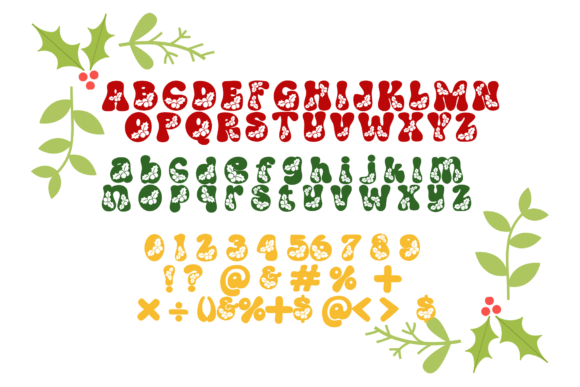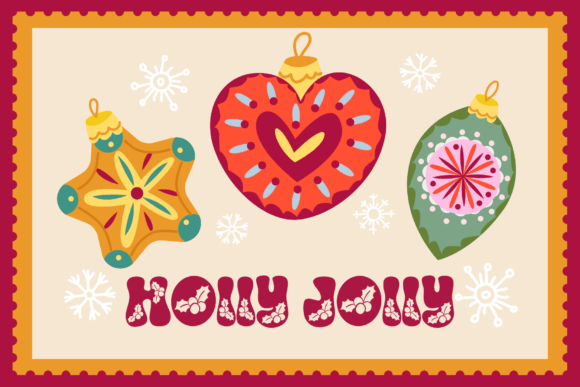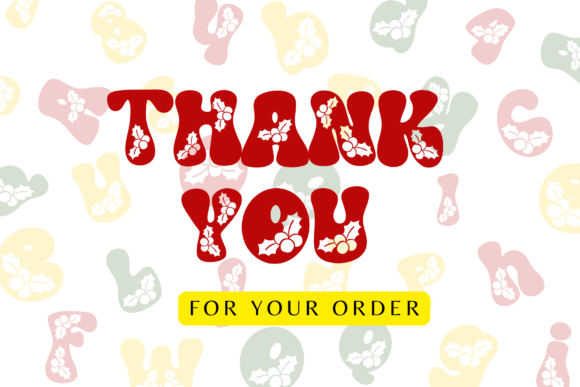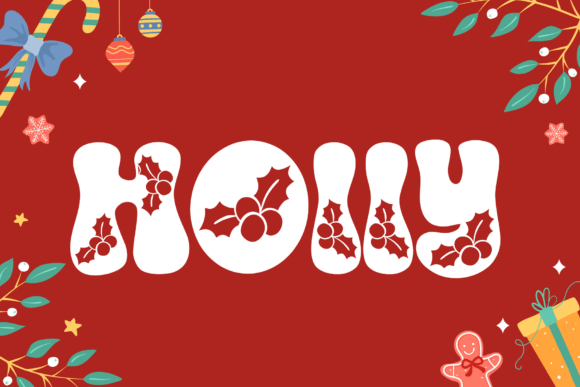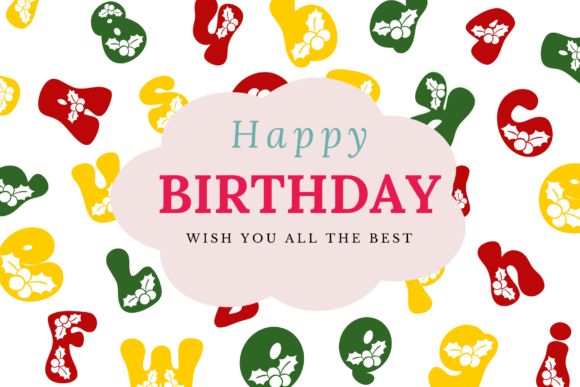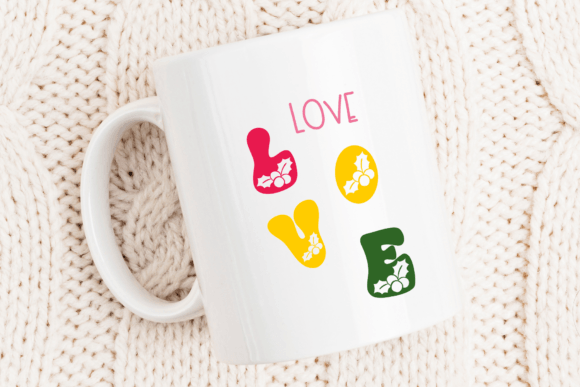
Christmas Holly Font: Add Holiday Cheer to Your Designs
Are you looking for a festive and fun font to add some holiday cheer to your designs? Look no further than the Christmas Holly Font! This decorative font is perfect for taking notes, writing a diary, or making greeting cards. But its uses don’t stop there – you can also use it to create a wide range of designs, from banners and social media posts to mugs, cards, shirts, and more.
What is Christmas Holly Font?
Christmas Holly Font is a unique and eye-catching font that features a festive holly design. The font is made up of intricate and detailed holly leaves and berries, which give it a fun and playful feel. The font is perfect for anyone who loves the holiday season and wants to add a touch of festive cheer to their designs.
Uses for Christmas Holly Font
One of the best things about Christmas Holly Font is its versatility. You can use it for a wide range of designs, including:
- Note-taking and journaling: Add a touch of holiday cheer to your notes and journals with this festive font.
- Greeting cards: Create beautiful and unique greeting cards for friends and family.
- Banners and signs: Use Christmas Holly Font to create eye-catching banners and signs for parties, events, and more.
- Social media posts: Add some holiday cheer to your social media posts with this fun and festive font.
- Mugs and ceramics: Create custom mugs, plates, and other ceramics with this unique font.
- T-shirts and apparel: Design custom t-shirts, hoodies, and other apparel with Christmas Holly Font.
- Stationery and paper crafts: Use this font to create custom stationery, gift tags, and other paper crafts.
Tips for Using Christmas Holly Font
Here are a few tips for getting the most out of Christmas Holly Font:
- Experiment with colors: Try pairing the font with different colors to create a unique and eye-catching design.
- Mix and match with other fonts: Combine Christmas Holly Font with other fonts to create a fun and interesting design.
- Use it sparingly: While Christmas Holly Font is festive and fun, it can be overwhelming if used too much. Try using it sparingly to add a touch of holiday cheer to your designs.
- Get creative with sizes and styles: Experiment with different sizes and styles to create a unique and eye-catching design.
Why Designers and Crafters Love Christmas Holly Font
Designers and crafters love Christmas Holly Font for a variety of reasons:
- Unique and eye-catching: This font is unlike anything else out there – it’s sure to grab attention and add some holiday cheer to your designs.
- Versatile: You can use Christmas Holly Font for a wide range of designs, from notes and journals to banners and social media posts.
- F festive and fun: Christmas Holly Font is the perfect way to add some holiday cheer to your designs and get into the spirit of the season.